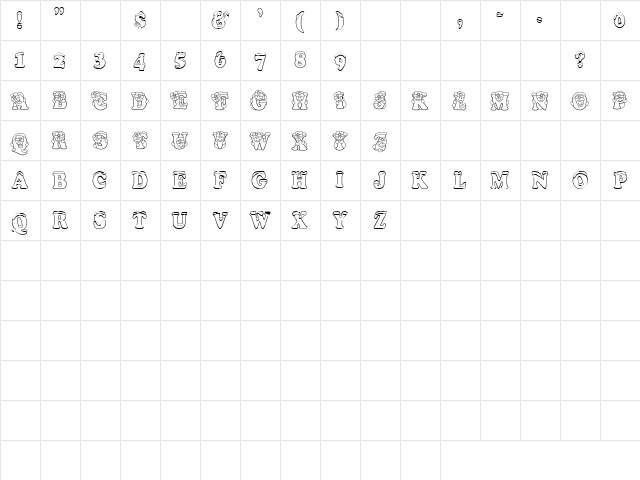
LD Snowman Regular
Design Context for LD Snowman Typeface
LD Snowman is a composed and adaptable typeface that performs quietly and consistently across a wide range of design contexts.